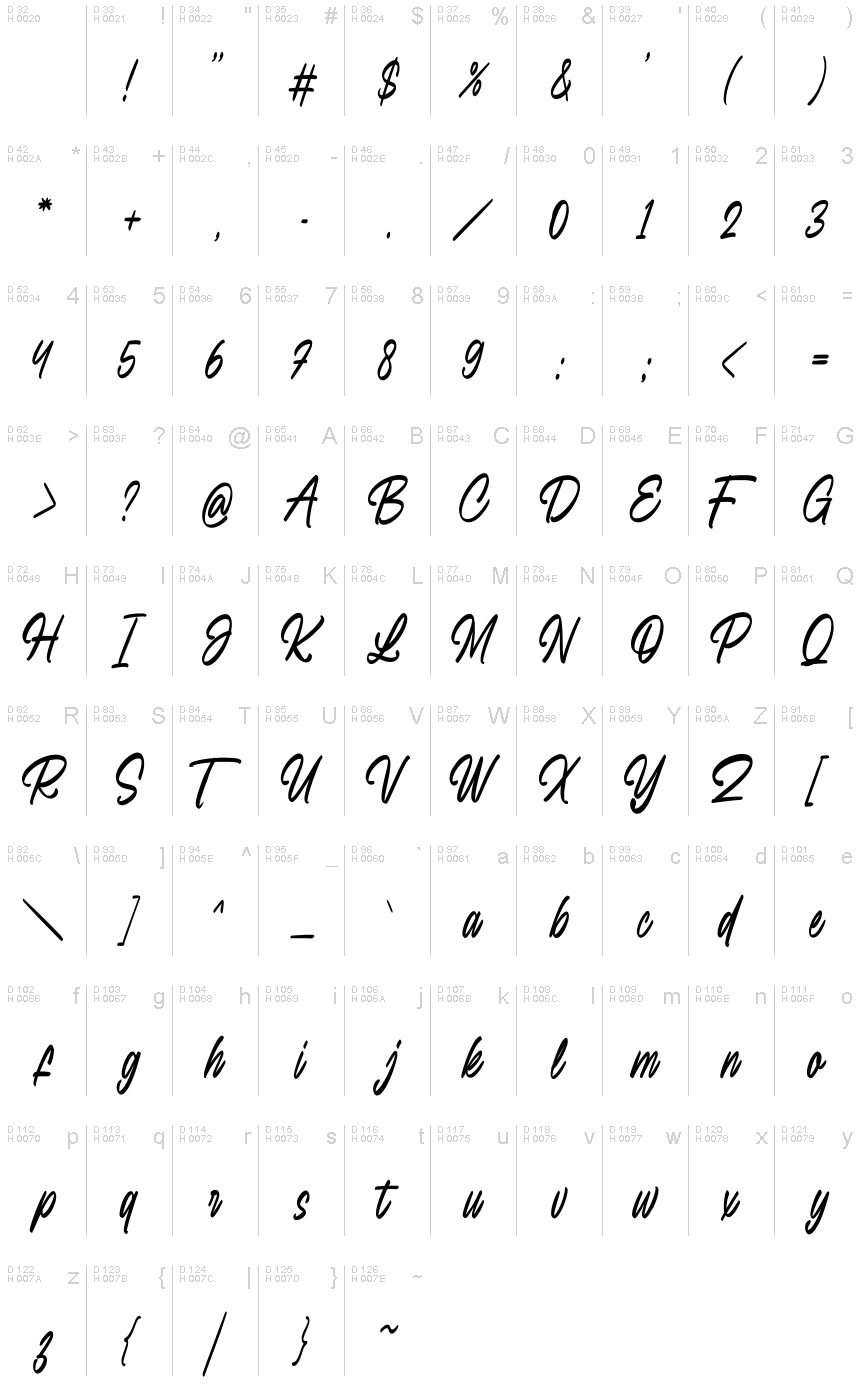
Sweet Cherice Regular
Damarletter Studios’ Sweet Cherice typeface has a classy handwritten look that suggests sophistication and friendliness. It is condensed to fit tight spacing rules of conventional typography, making it an attention-grabbing typeface with a fluent cursive script.
Sweet Cherice is great for branding ventures, invites, and social media visuals, adding a personal touch to any project. This font can be downloaded free by individuals involved in creative work who want to imbibe their typography choices with some artistic flair. Thus, Sweet Cherice becomes an outstanding piece of digital art.